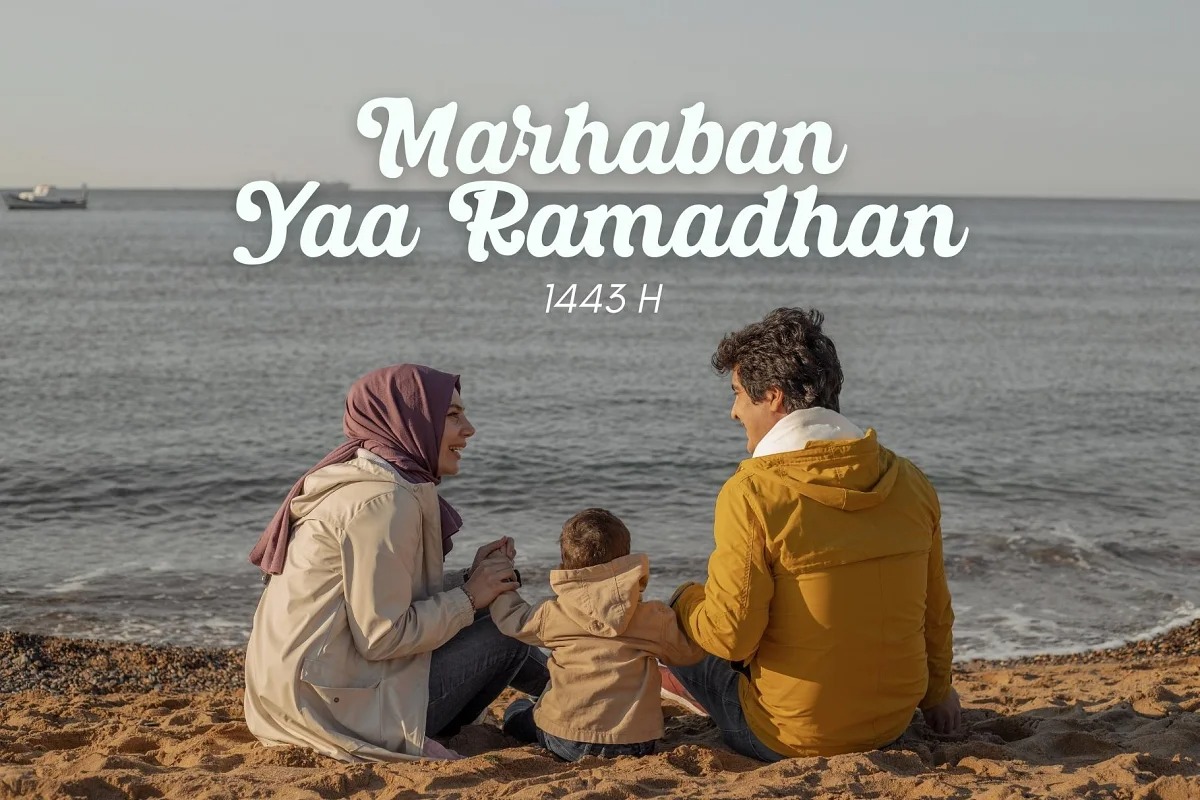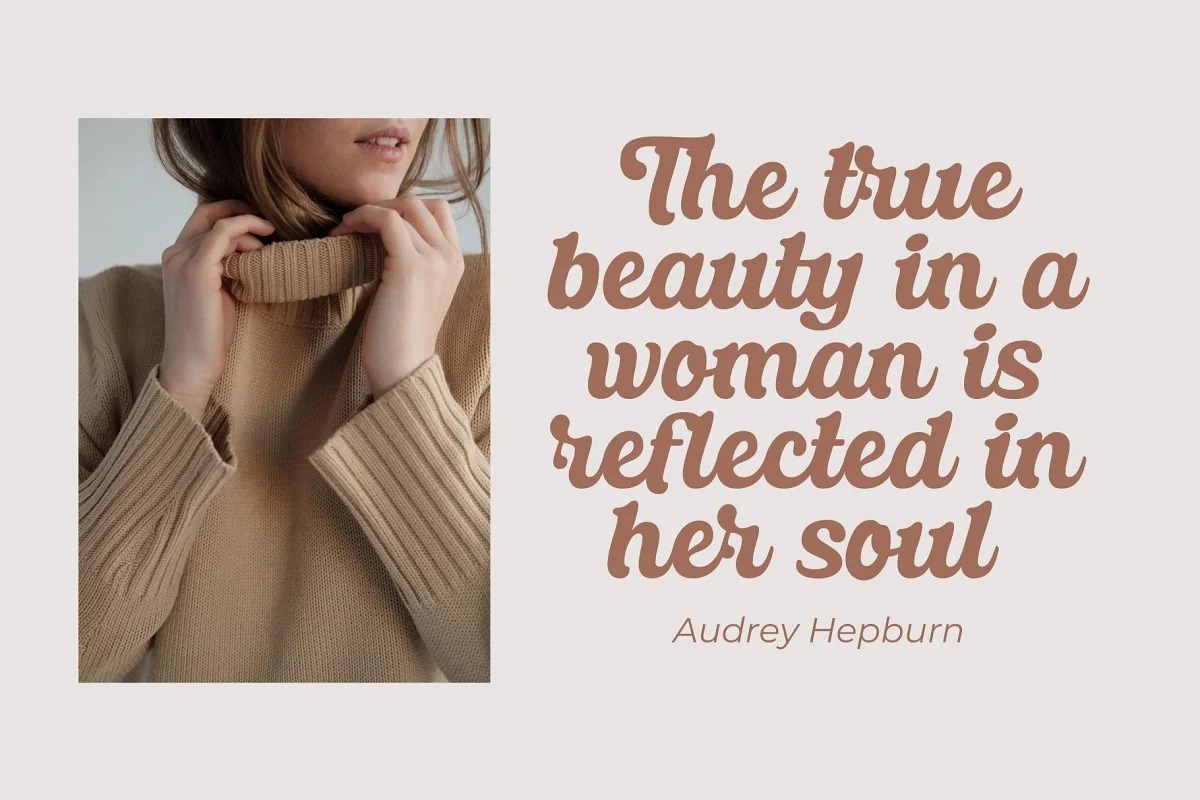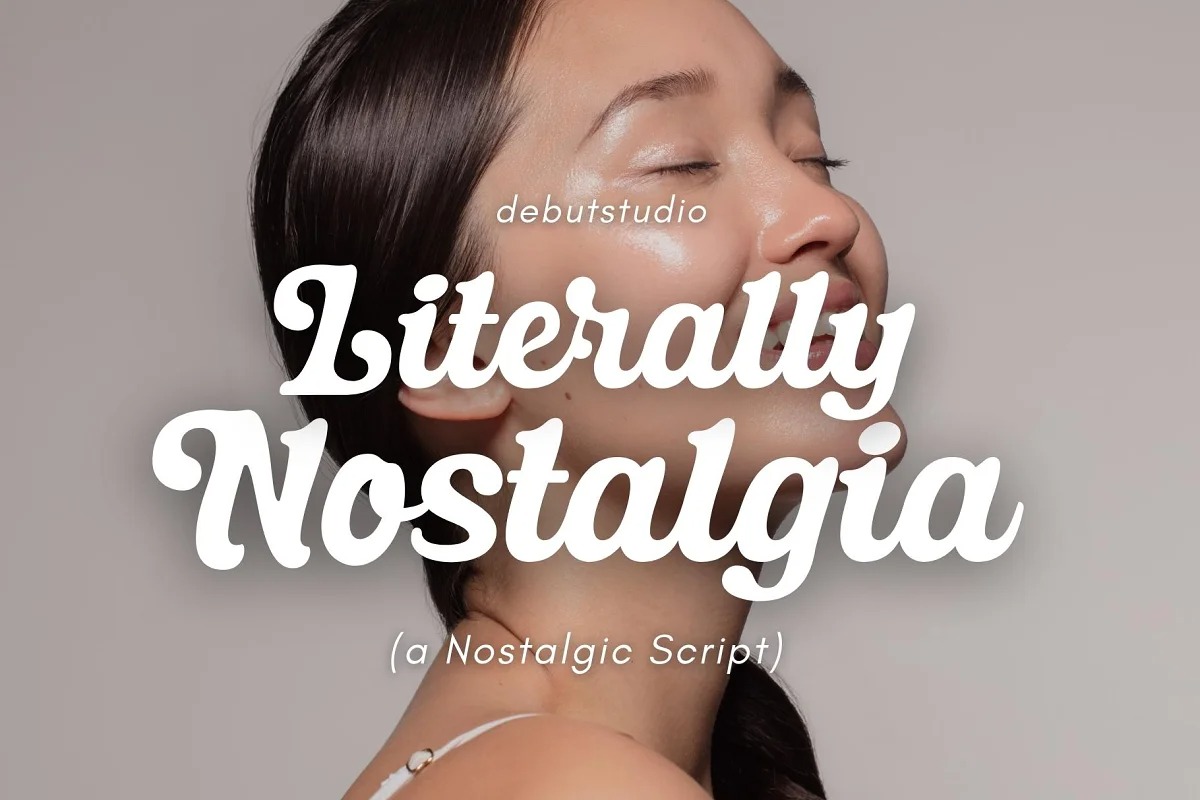
Literally Nostalgia Script Font
It’s a bold script font manufactured by Debut Studio, inspired by vintage logos and old-school sign painting. This Script is a special script or typeface because this font is designed for those of you who need a script font that you will use to design something to reminisce about your good old days.